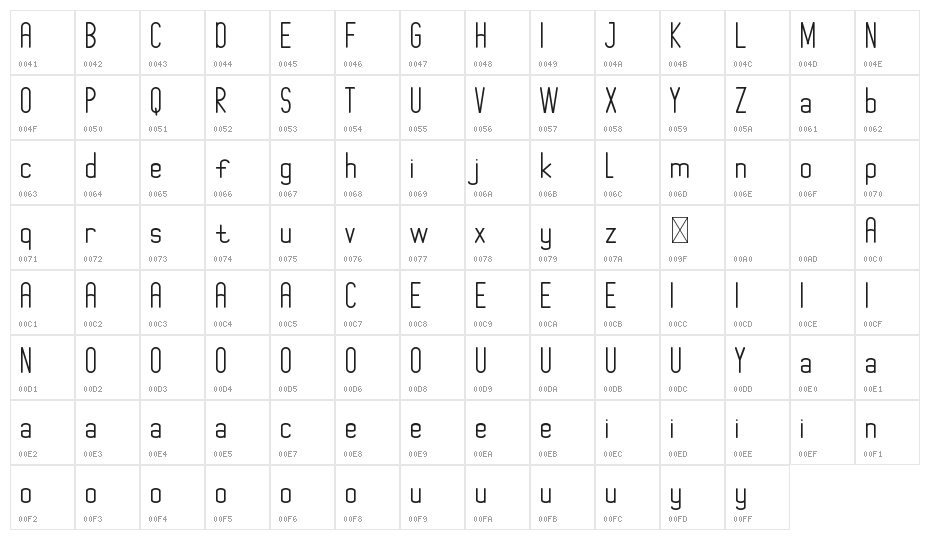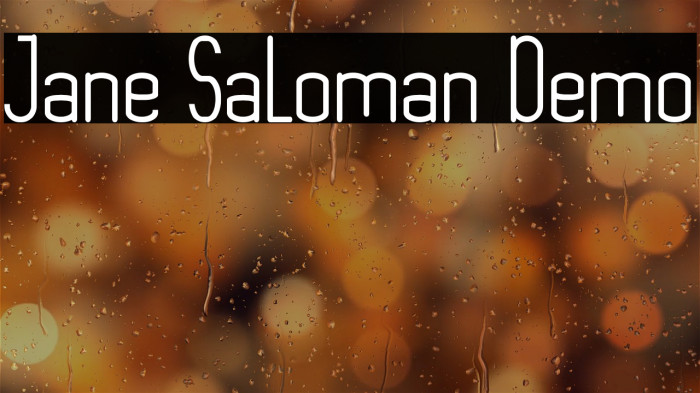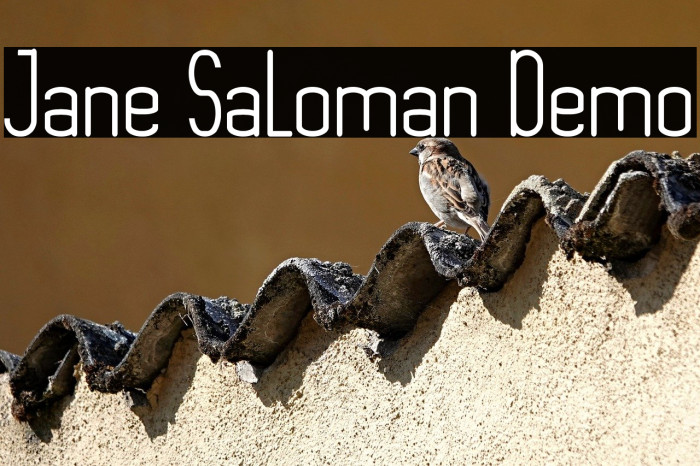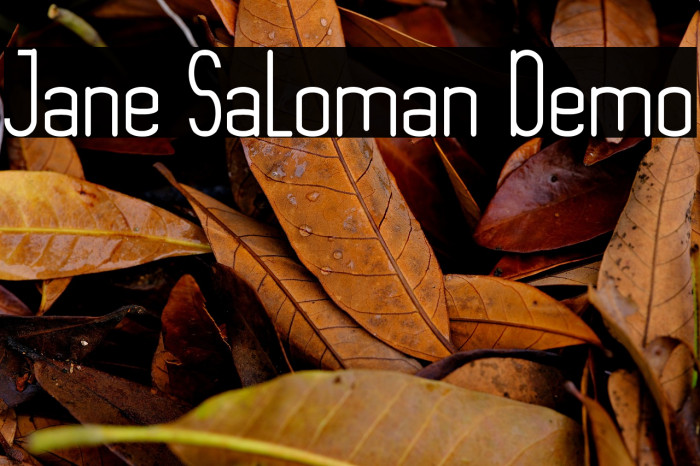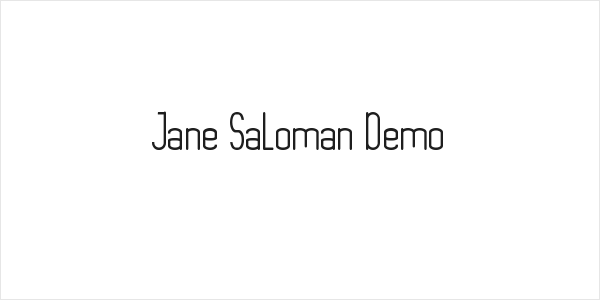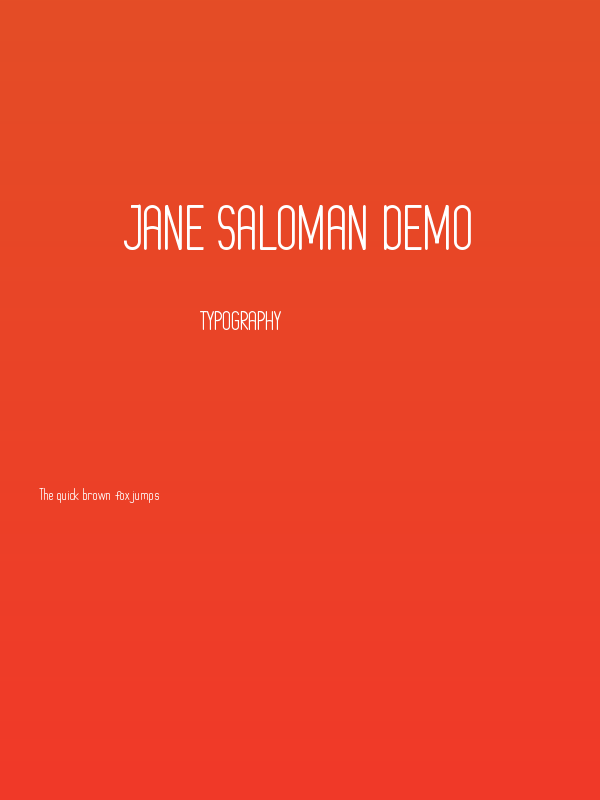
Jane Saloman Demo Font
Jane Saloman Demo Description
This font features a clean and modern design with rounded edges and a geometric structure. The characters are uniformly proportioned, giving it a balanced and harmonious appearance. The uppercase and lowercase letters are distinct yet complementary, with a consistent stroke width that adds to its readability. The font's simplicity and clarity make it versatile for various design applications. It maintains a uniform height across all characters, enhancing its neat and orderly look. The rounded terminals and smooth curves contribute to its friendly and approachable aesthetic.